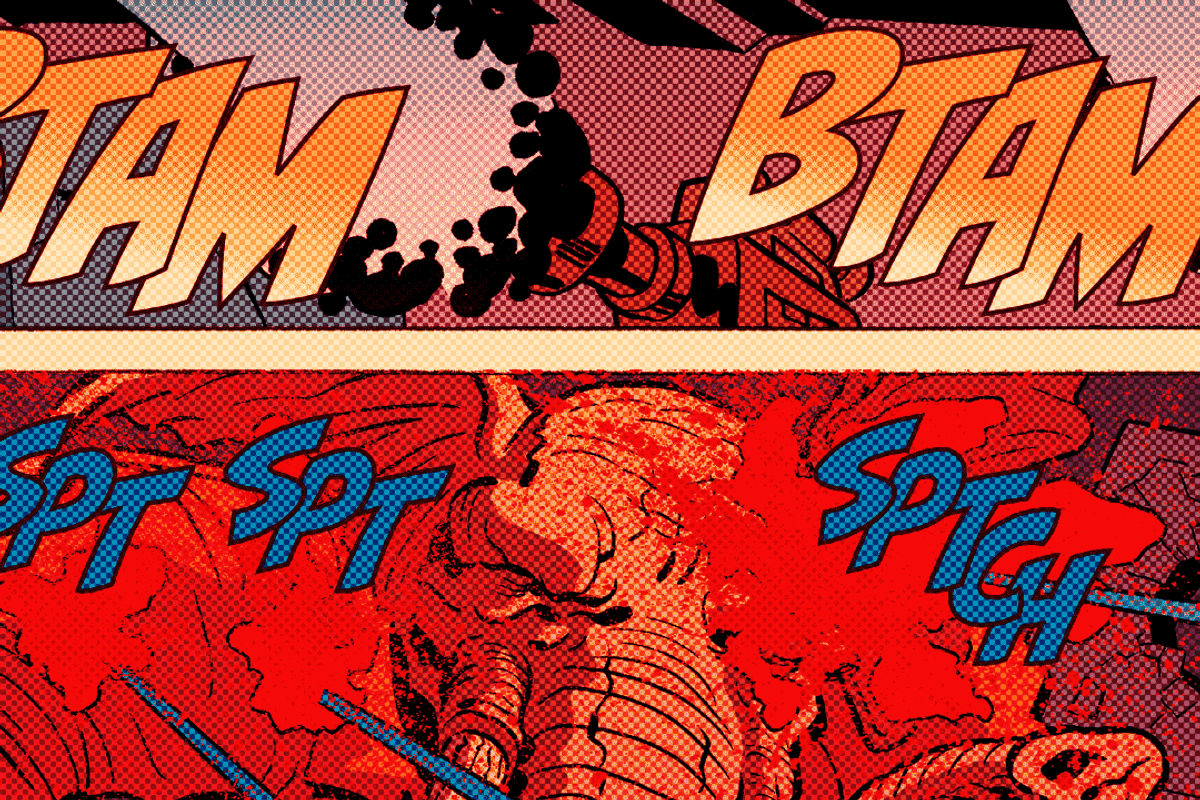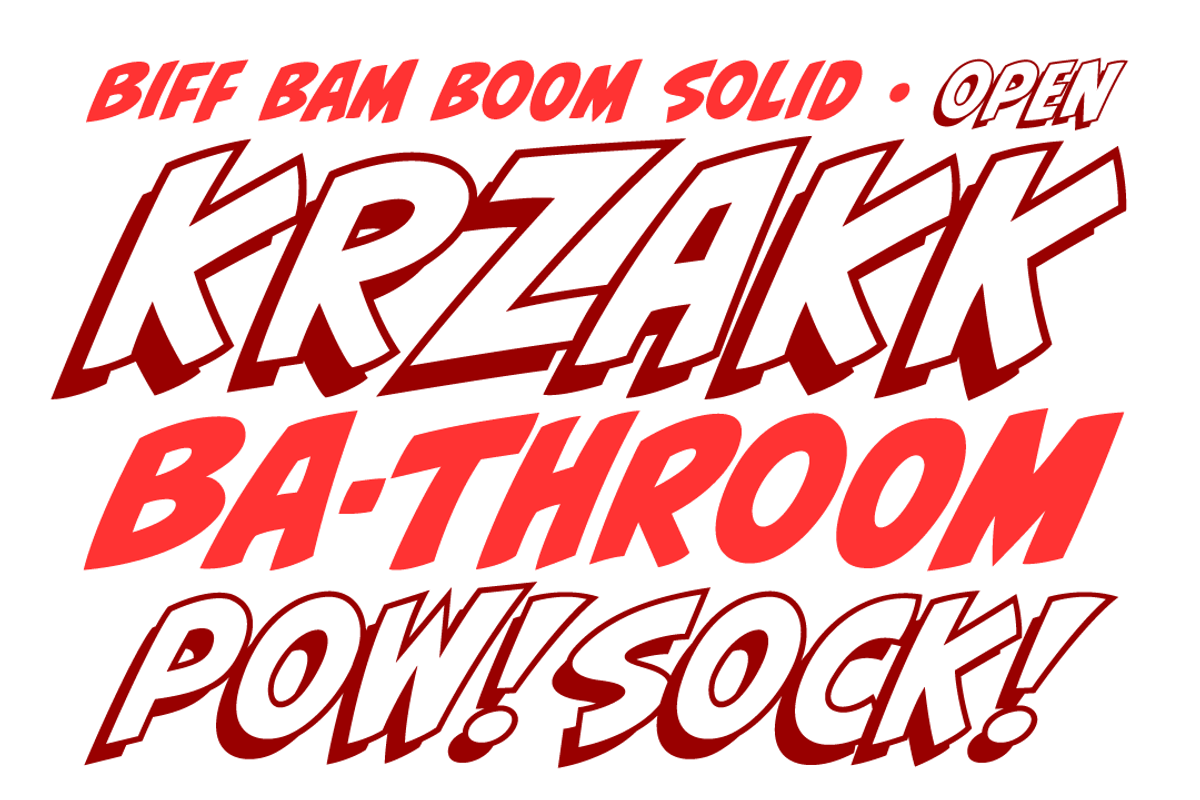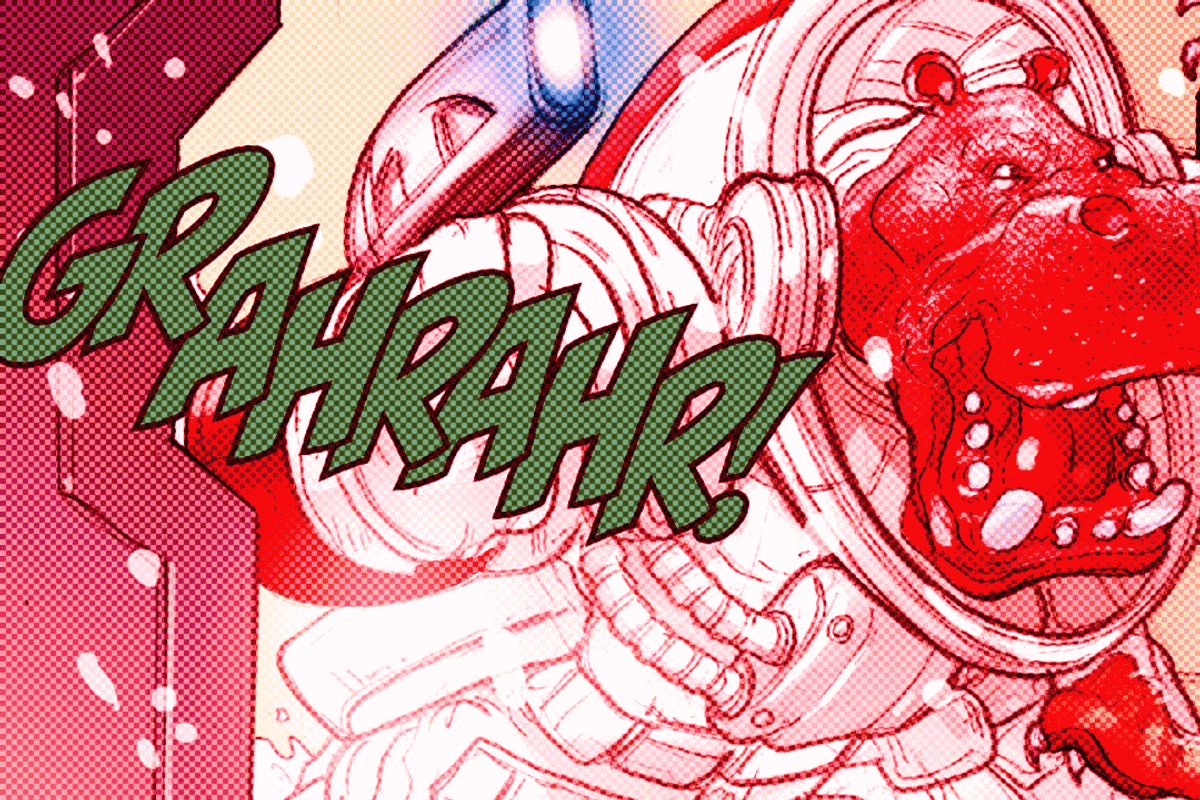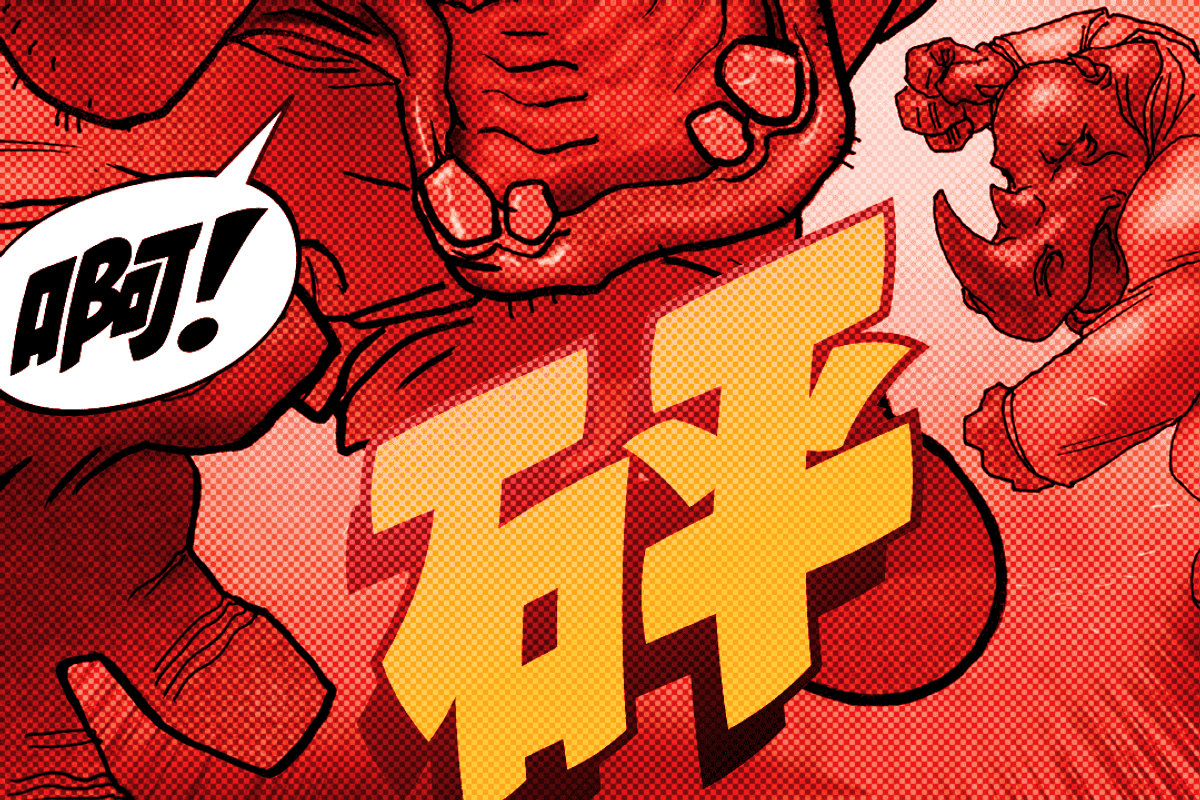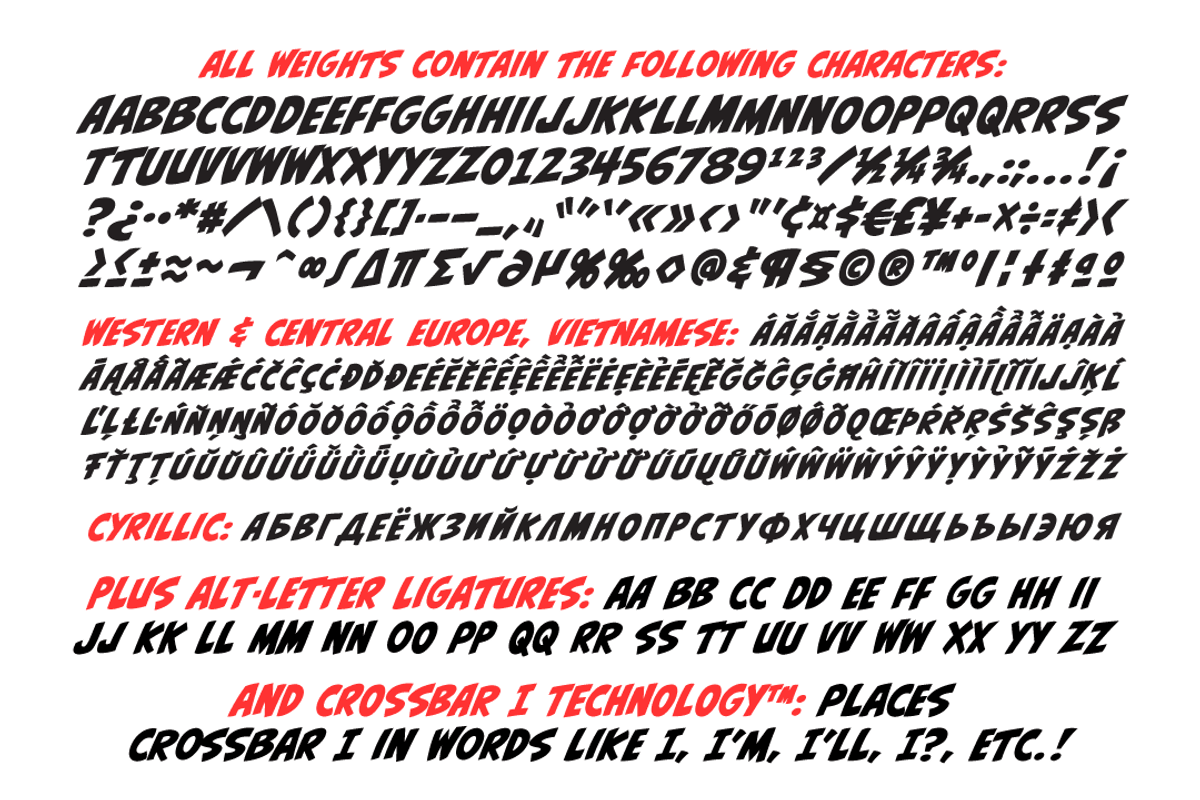
Biff Bam Boom Comic Book SFX Font
Biff Bam Boom Comic Book SFX Font by Comicraft Fonts is a font selected for branding, posters, packaging, typography.
- Remastered Biff Bam Boom includes Central European, Vietnamese & Cyrillic characters, improved spacing & kerning, auto double-letter ligatur
Why Biff Bam Boom Comic Book SFX Font is worth a look
Biff Bam Boom Comic Book SFX Font by Comicraft Fonts fits naturally into Branding, posters, packaging, typography.